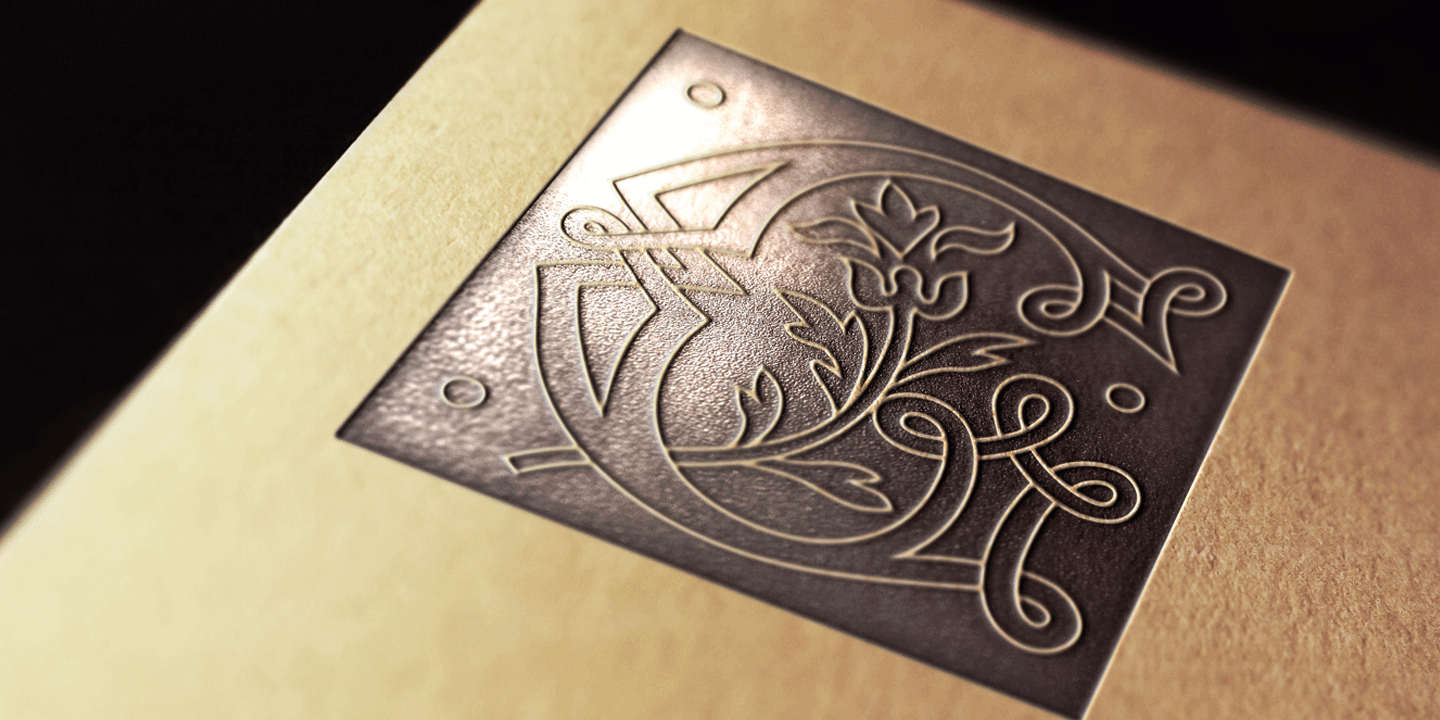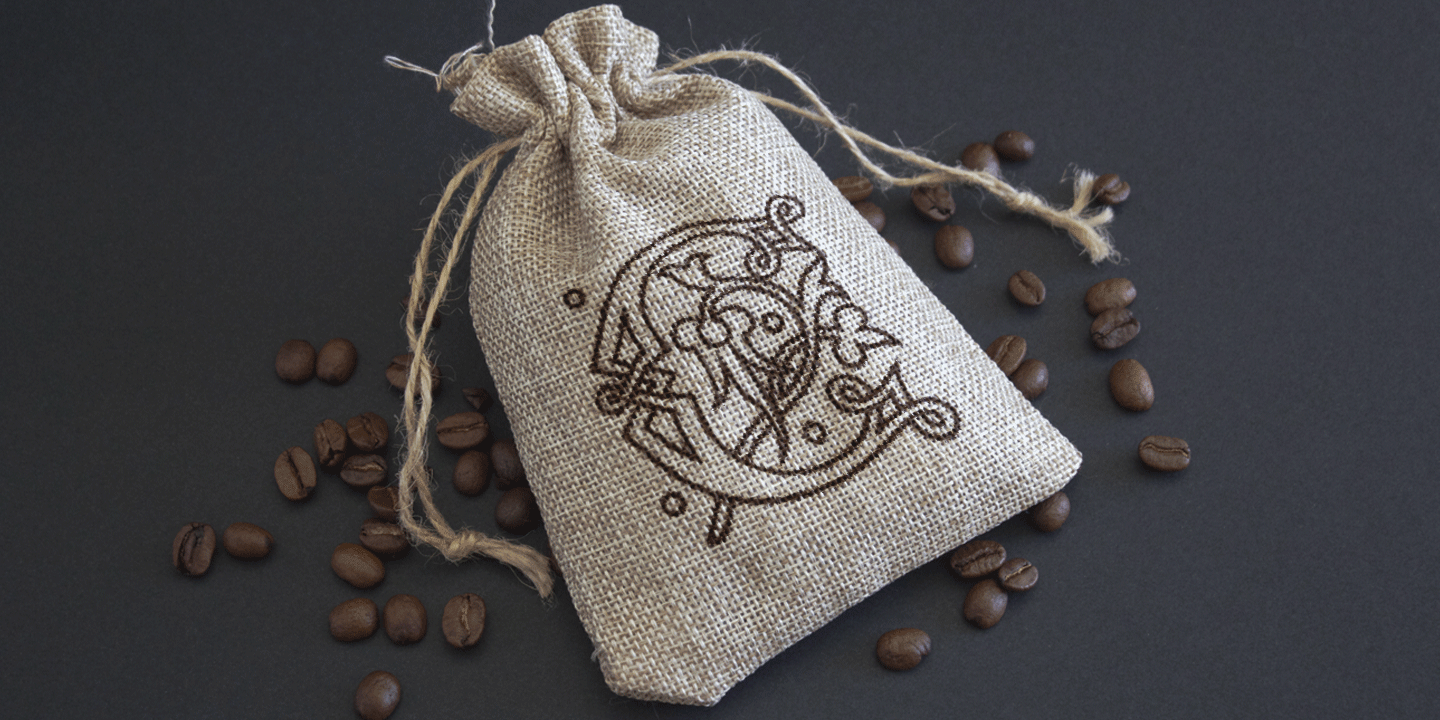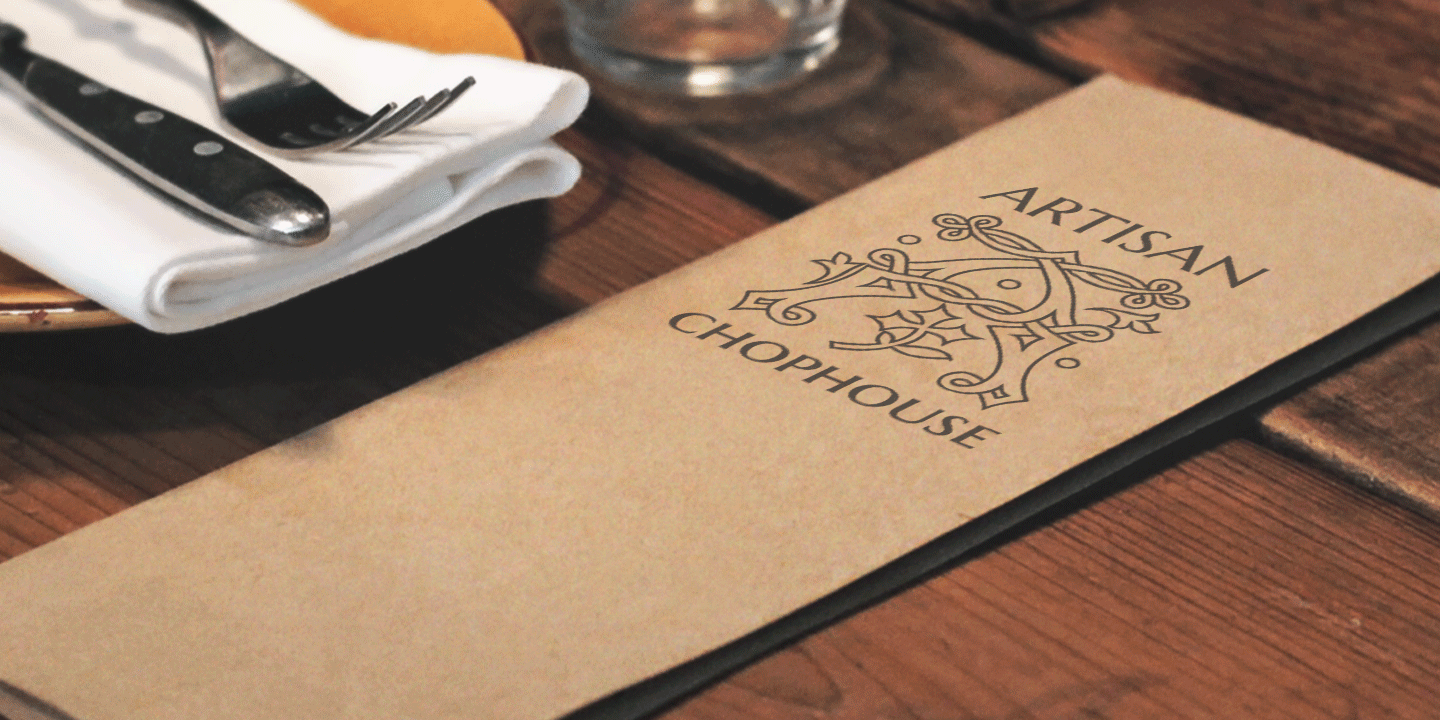
About MFC Laroux Initials
The source of inspiration for Laroux Initials is an alphabet set from the book ?Monograms and Alphabets for Combination? by Dollfus, Mieg & Cie, first published in the 1880\’s. We\’ve added cameo versions of all the glyphs and included some ornamental glyphs…